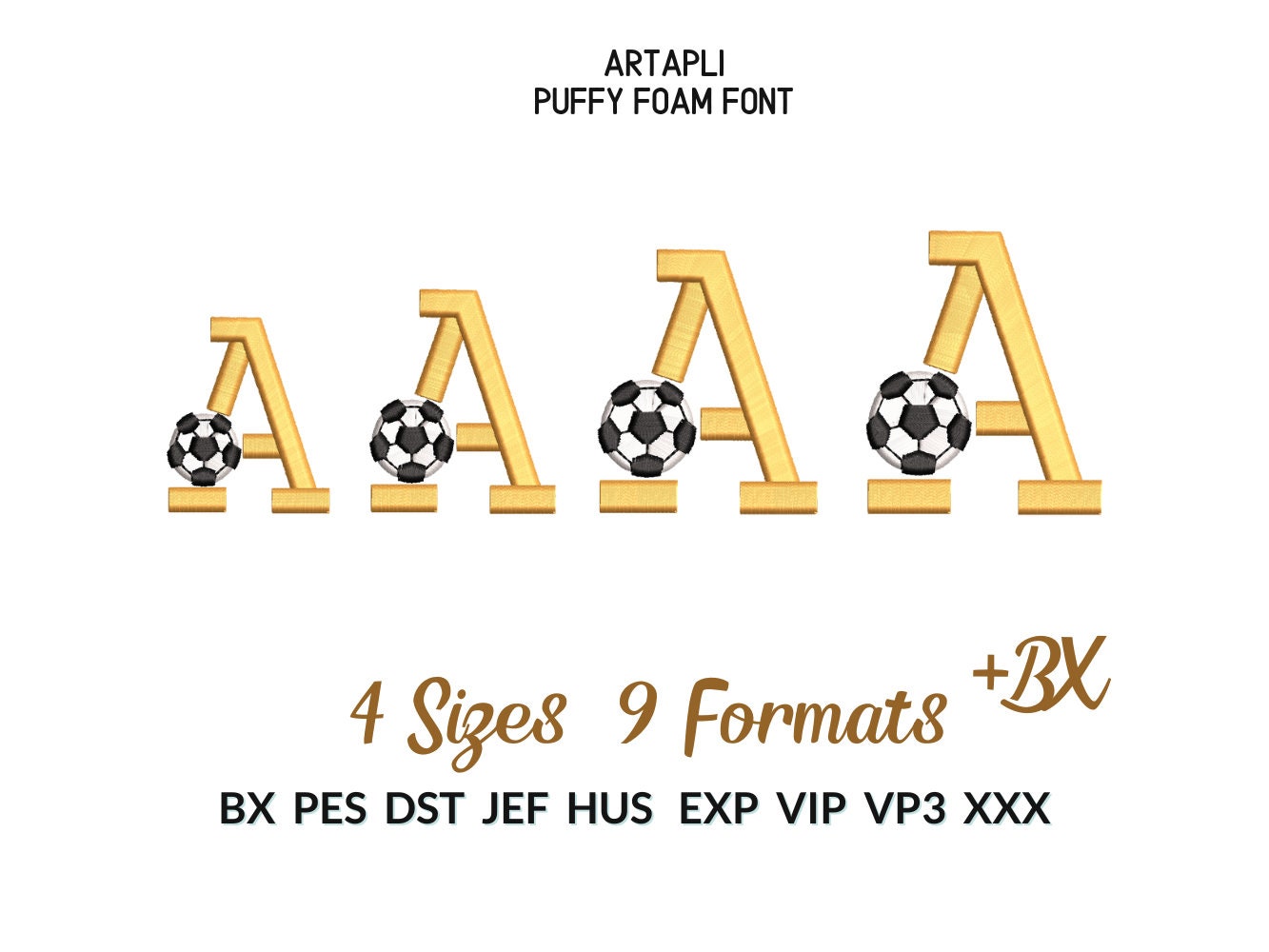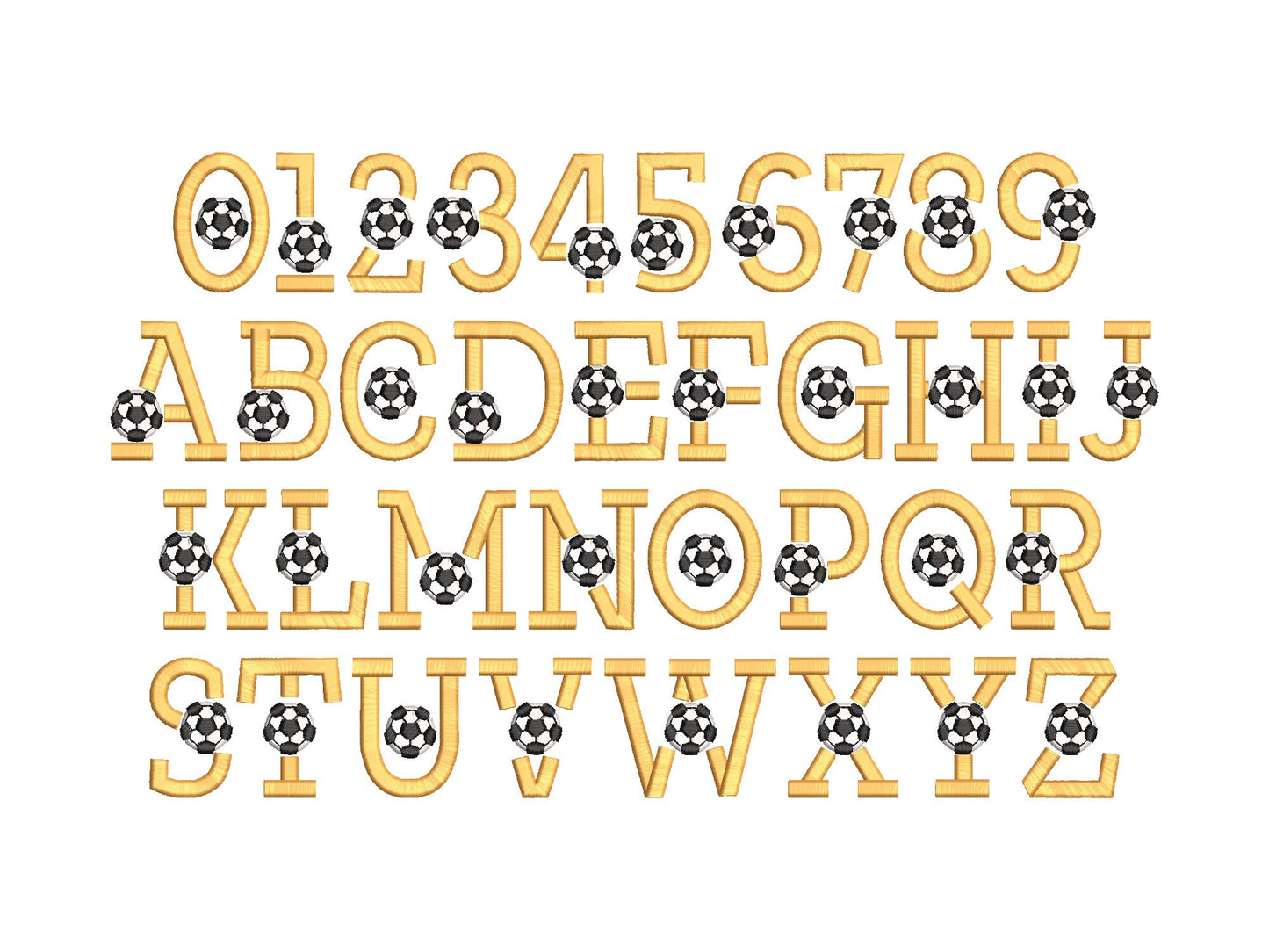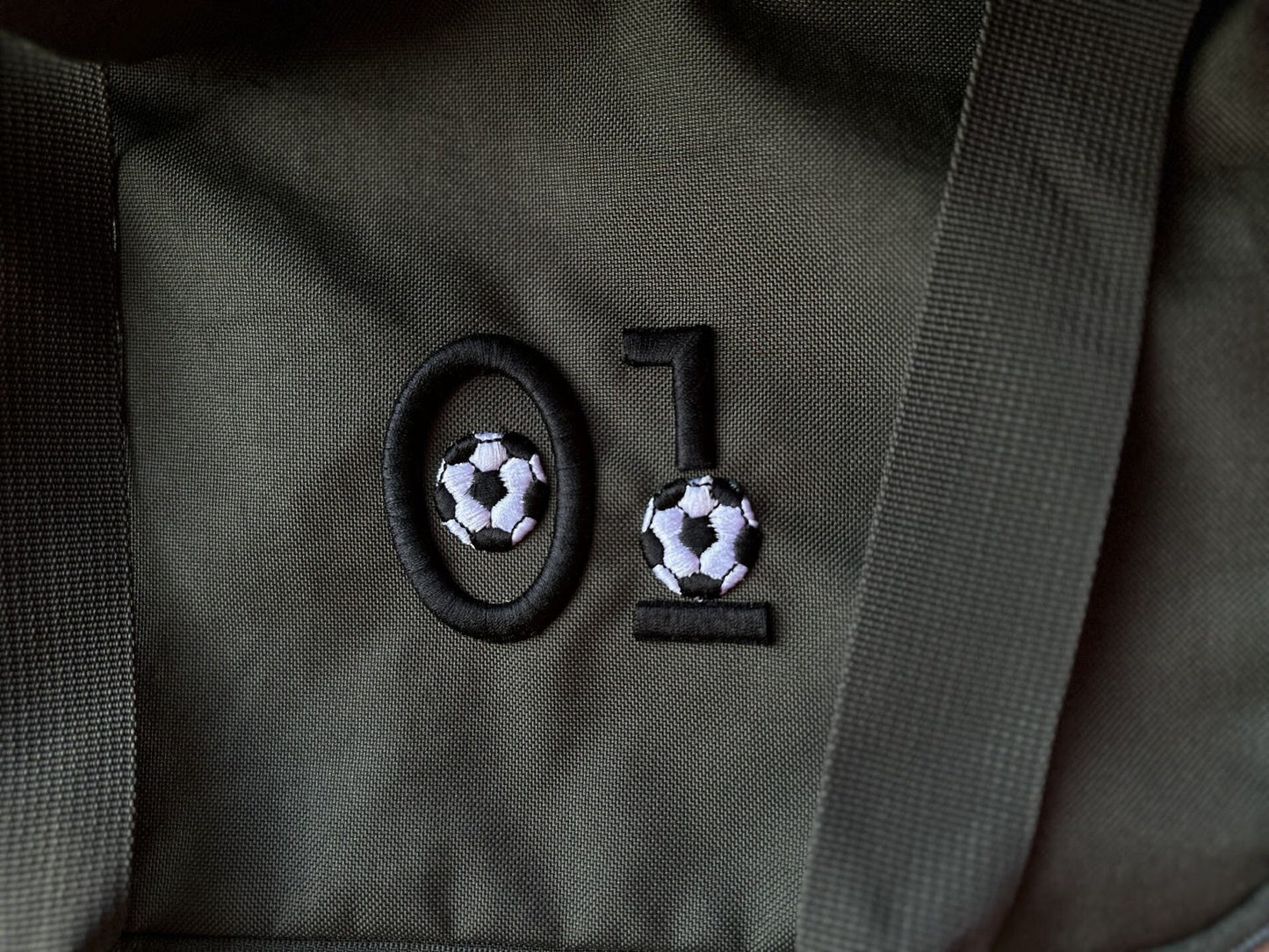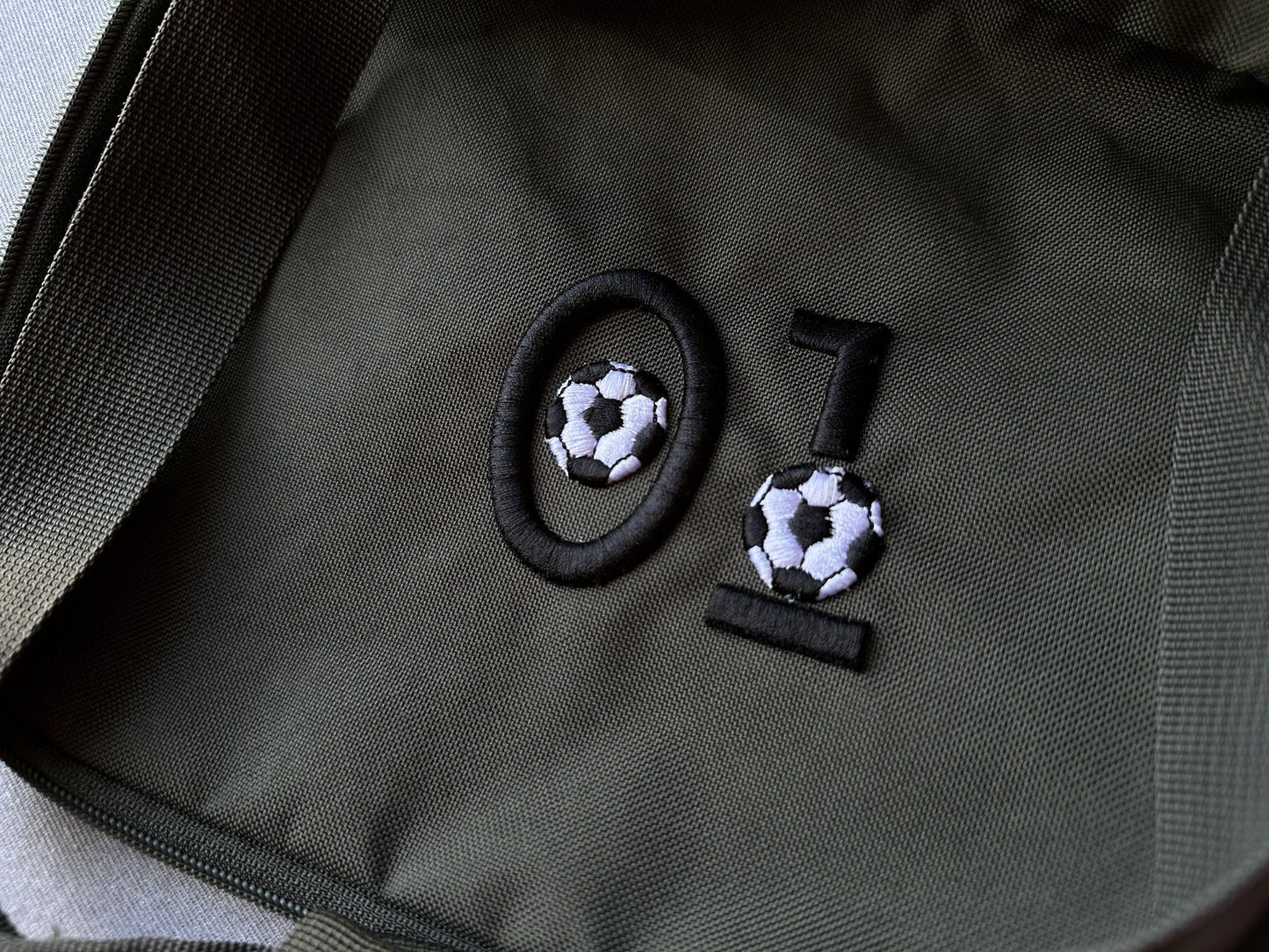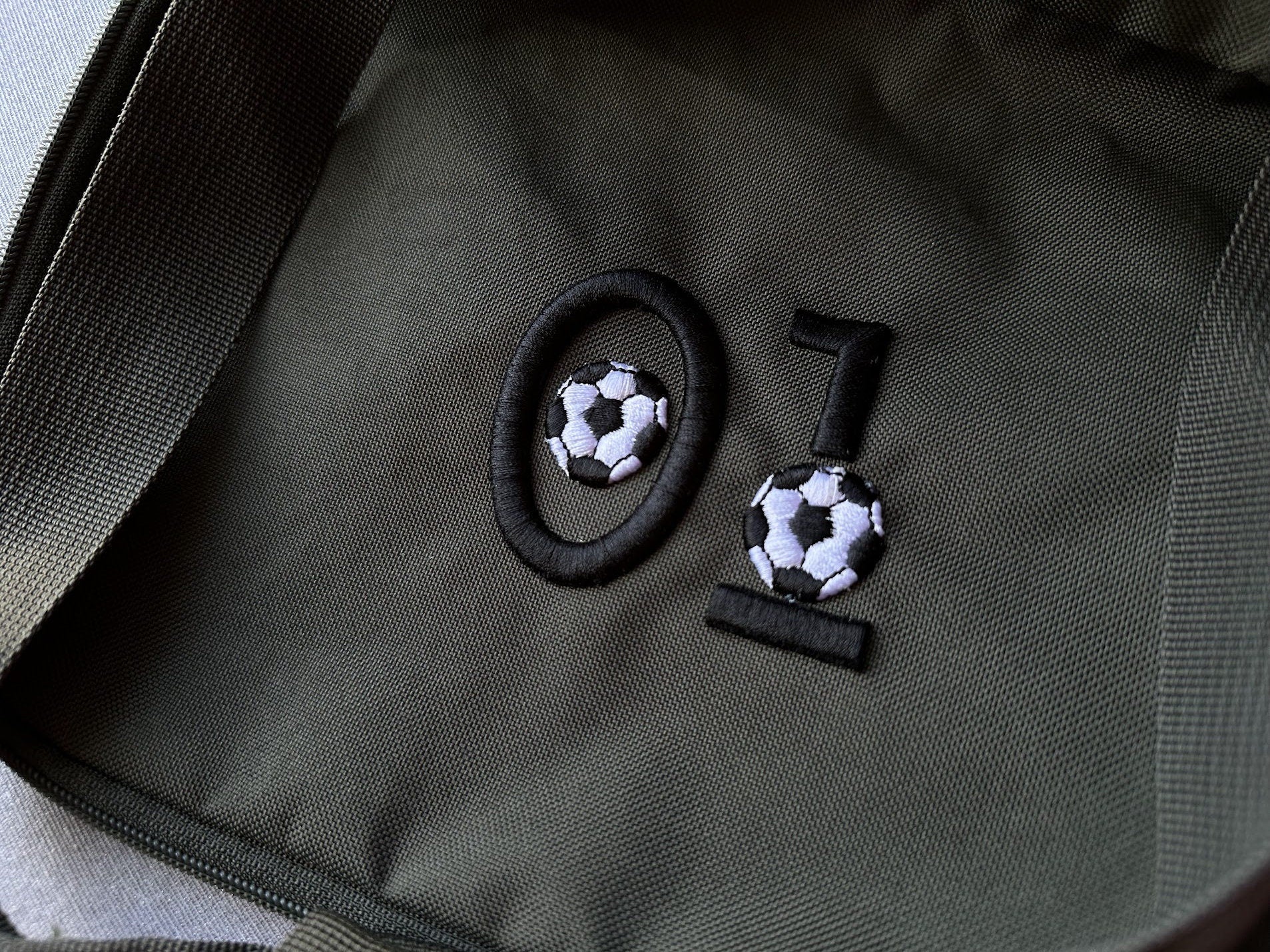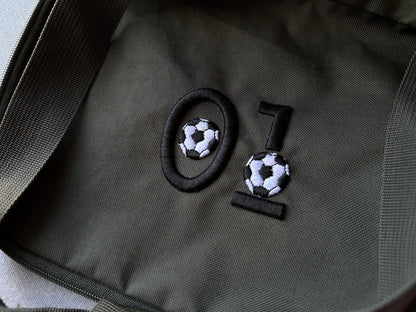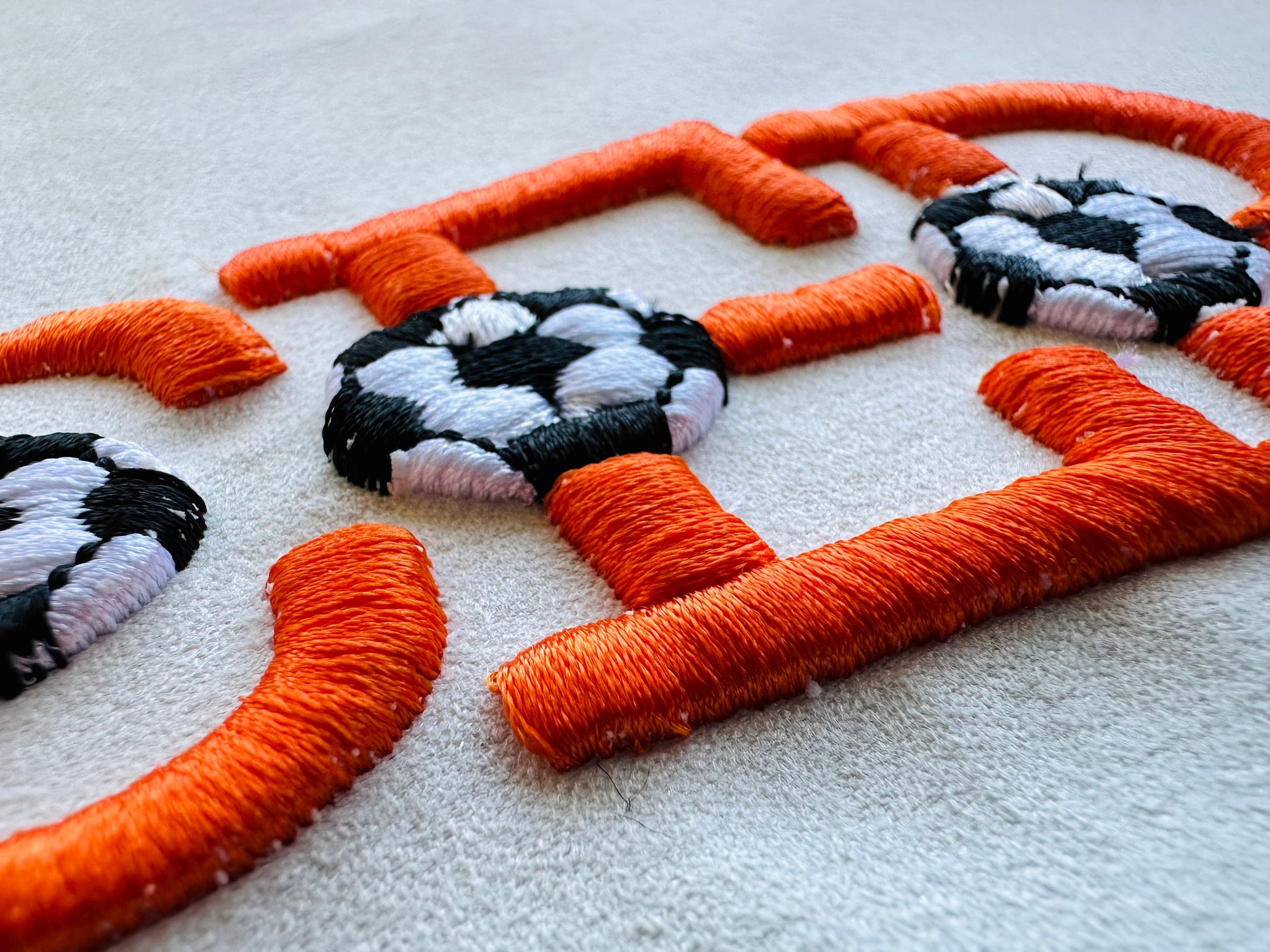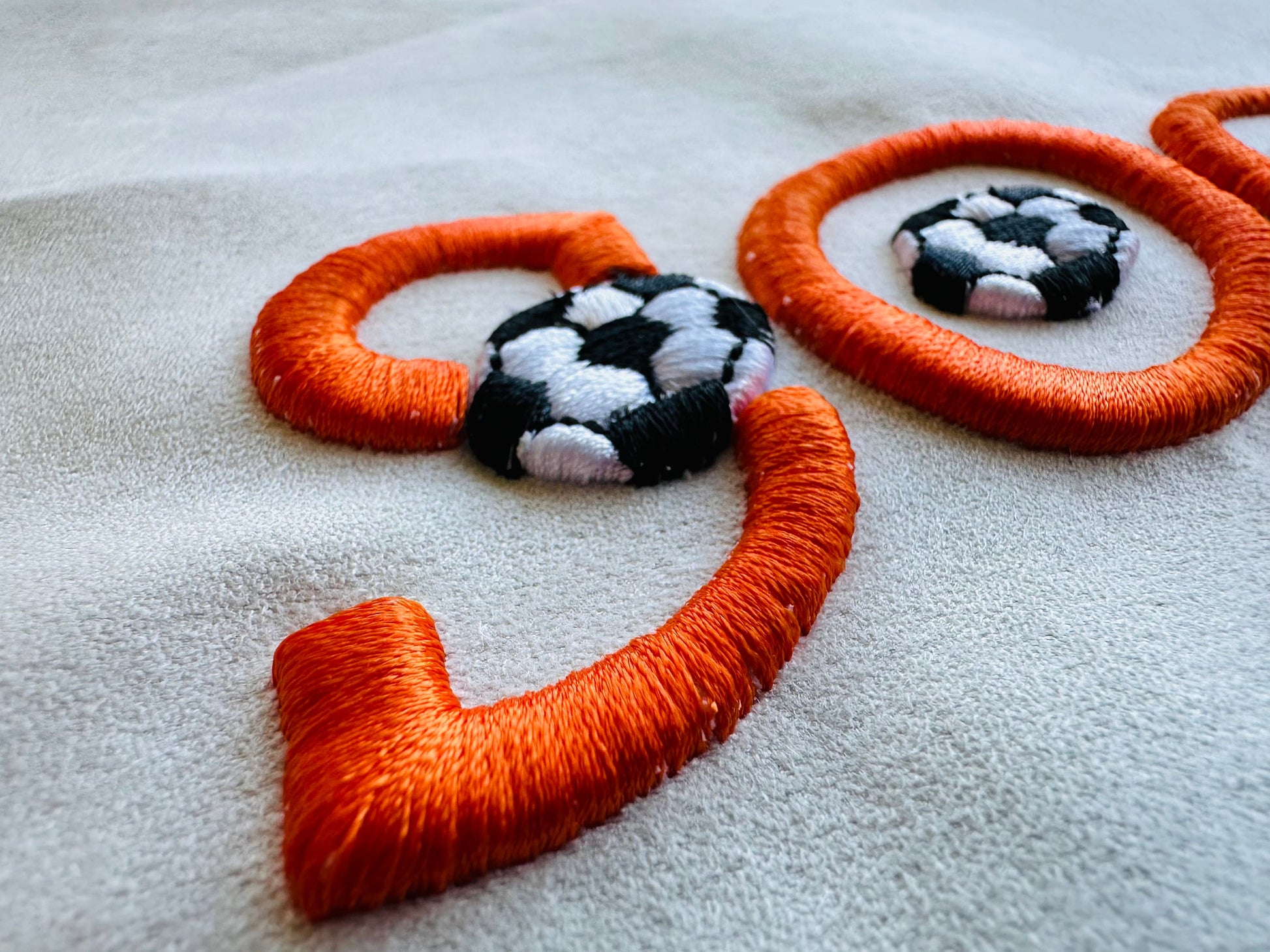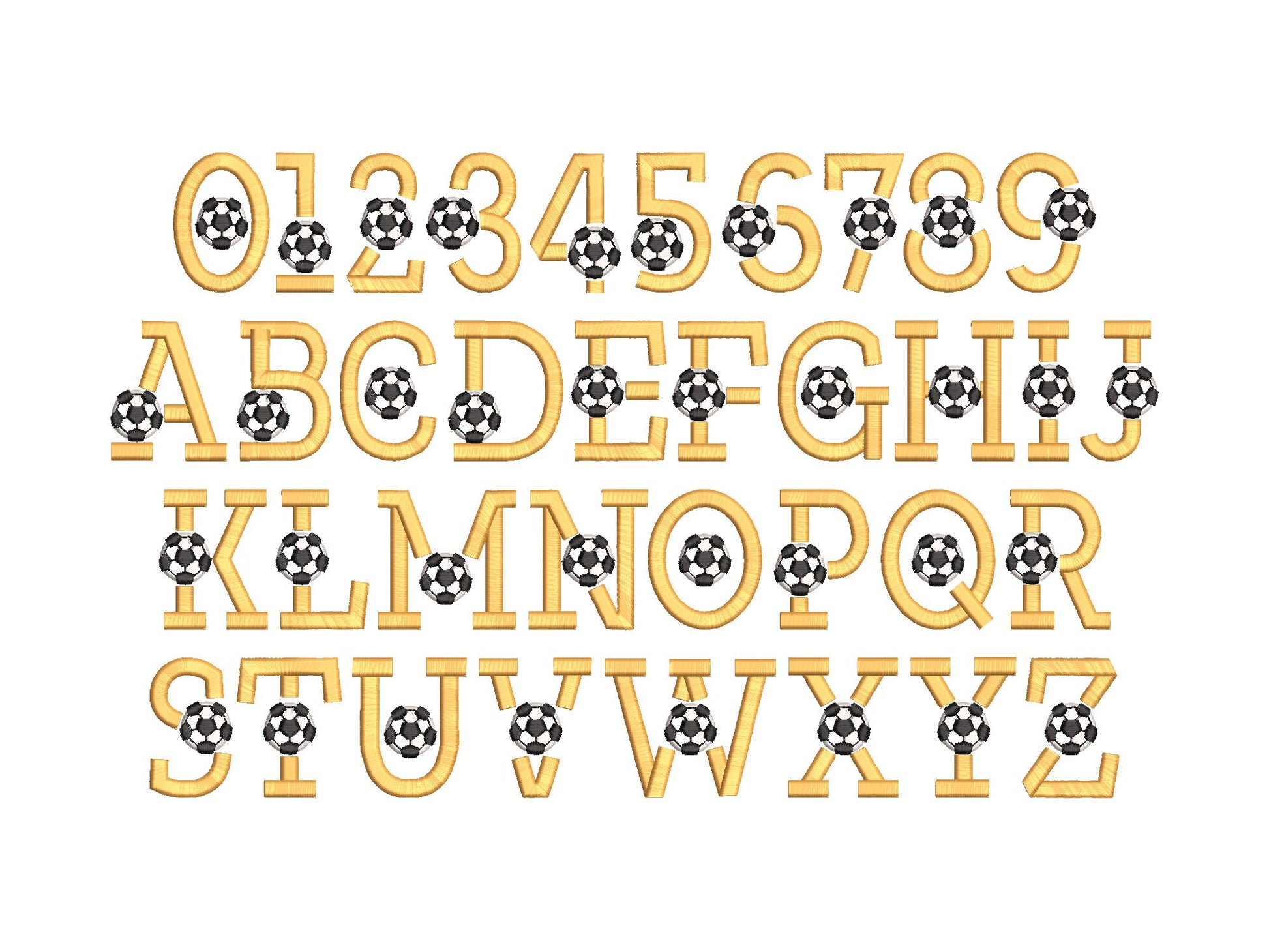
Or click to open the linkA 3D puffy soccer font in satin stitch over foam, for sporty boys' names and numbers on shirts, bags and caps.
Stitched over puffy foam (about 3 mm) for raised letters. Uppercase A to Z and numbers 0 to 9 in four sizes: 1.9, 2.2, 2.5 and 2.8 inches.